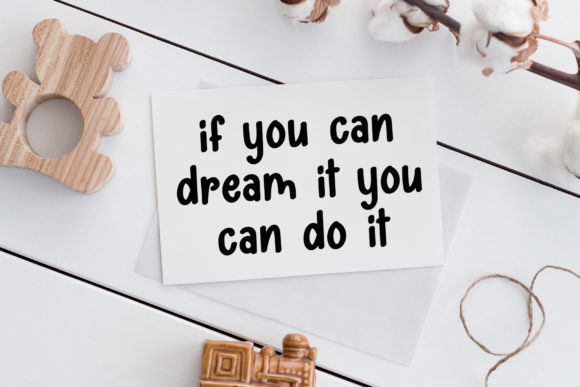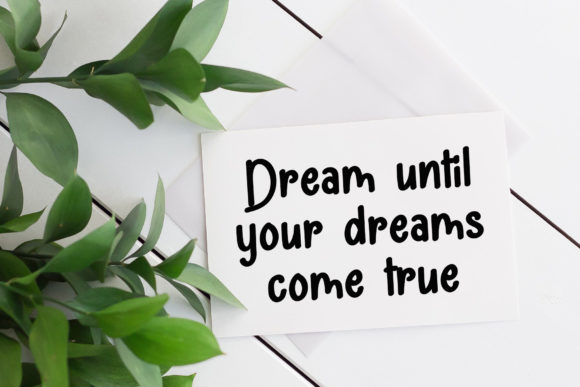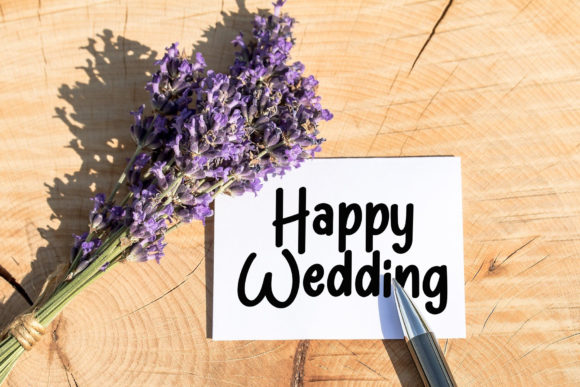
Wedding Anniversary Font
About Wedding Anniversary Font
Wedding Anniversary is a simple and adaptable handwritten font. Its natural and unique style makes it incredibly fitting to a large pool of designs. The only limit is your imagination!